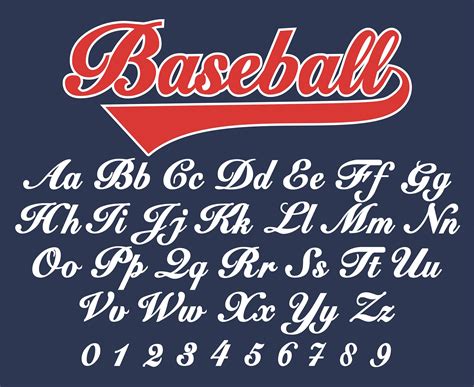
Unveiling The Baseball Font With A Tail: A Complete Guide
Hey guys! Ever wondered about those cool fonts you see on baseball jerseys, scoreboards, or even in your favorite team’s logo? One of the most eye-catching styles often features a distinctive “tail” – a flowing, extended element that adds flair and dynamism. Today, we’re diving deep into the world of baseball fonts with tails , exploring their origins, characteristics, and where you can find the perfect one for your project. This guide is designed to be your one-stop resource, whether you’re a seasoned designer, a passionate sports fan, or just someone curious about the aesthetics of America’s favorite pastime.
The Anatomy of a Baseball Font with a Tail: What Makes It Special?
So, what exactly is a baseball font with a tail? Well, it’s pretty much exactly what it sounds like! It’s a font style typically inspired by the lettering used in baseball. The “tail”, also often referred to as a “swash” or “serif extension”, is a decorative flourish that extends from the end of a letter, usually curving or flowing in a visually appealing way. These tails are not just random additions; they serve several purposes, which we will explore further. It’s a key characteristic, separating it from standard sans-serif or serif fonts often used.
Firstly, baseball fonts with tails are designed for impact. They demand attention, making them ideal for headlines, logos, and any design element that needs to make a statement. The tails add a sense of movement and energy, mirroring the dynamism and excitement of the sport itself. Think of it like a stylized representation of a baseball player swinging for the fences – full of power and motion. The design is crucial, since the tail creates a unique visual identity, and is also used to represent the name of the players or the teams, and that’s why it is so famous. The fonts often come in various weights, from thin and elegant to bold and aggressive, allowing for versatility in different applications.
Secondly, the tail can add a sense of personality and character. Designers can get creative with tail styles, from simple, elegant curves to more elaborate and stylized flourishes. This can help communicate the personality of a team or brand. Some fonts have tails that mimic the stitching on a baseball, adding a thematic touch. Others might incorporate subtle nods to baseball equipment like bats or gloves. This attention to detail can elevate the design, making it more engaging and memorable. Tail features can also affect the readability of a font. It can make them more legible at a distance, making them perfect for sports arenas.
Finally, baseball fonts with tails are a nod to tradition. They are a visual representation of the history and legacy of the sport. Their design gives off the feeling of traditional sportsmanship. By using a baseball font with a tail, you’re tapping into the rich visual language of baseball, instantly connecting with fans and evoking a sense of nostalgia and pride.
Key Characteristics to Look for in Baseball Fonts with Tails
When choosing a baseball font with a tail , there are several key characteristics to keep in mind. Understanding these features will help you select the perfect font for your specific project. Here are some of the most important things to consider:
• Readability: Although the tail adds a distinctive flair, it’s crucial that the font remains easy to read. Especially when used in headlines, the letters need to be clear and distinguishable, and the tail must not interfere with the overall structure. A font that is too stylized or has an overly elaborate tail might be visually interesting but difficult to decipher.
• Style of the Tail: This is where the personality of the font truly shines. Consider the shape, length, and direction of the tail. Does it flow smoothly or have sharp angles? Does it curl upwards or downwards? The style of the tail should complement the overall design and communicate the desired message. For example, a font with a bold, aggressive tail might be suitable for a high-energy brand, while a font with a more elegant tail might be better suited for a classic or refined look.
• Weight and Kerning: The weight of the font (e.g., light, regular, bold, extra bold) affects the visual impact. The font’s kerning (the space between letters) is also essential for readability. Ensure that the chosen weight and kerning work well together, particularly at different sizes. Poorly kerned fonts can appear cluttered and difficult to read, which can ruin the overall design. When it comes to the weight, if you choose a bold font, be careful about the tail, as it can be too dense.
• Letterforms: Apart from the tail, examine the overall shape of the letters. Are they round or angular? Do they have any unique features, like serifs or stylistic alternates? The design of the letterforms should be consistent and contribute to the overall aesthetic. Look for fonts with consistent letter spacing, making them easy to read. Consider testing out the font in various sizes. This can give you an idea of how well it maintains its readability and impact.
• Versatility: Does the font offer a range of weights and styles? Is it available in both uppercase and lowercase? A versatile font will give you more flexibility in your design projects. Look for a font family that includes different weights, such as light, regular, bold, and extra bold. The availability of lowercase letters can also be very useful, allowing you to create more diverse and balanced designs. A broader range of options allows for greater creative freedom.
Alright guys, let’s get down to the good stuff! There’s a ton of fantastic baseball fonts with tails out there, and here are a few popular choices and where you can find them:
• Varsity Team: This is a classic, widely used font that embodies the spirit of traditional sports lettering. It’s often seen on college and high school sports teams’ logos and jerseys. The font features bold, impactful letterforms with distinctive, flowing tails. You can often find this font on websites like MyFonts and Creative Market.
• Home Run: Home Run font provides a more modern and stylized take on the classic baseball font. You can discover this font on sites like FontBundles, which offers various options.
• Bangers: Bangers font offers a distinct personality. This font usually includes extra features, such as tail variations or alternative letter forms. These can be easily found on sites like Google Fonts or FontSquirrel.
• League Spartan: League Spartan is a bold, condensed sans-serif font, often used in athletic branding, including baseball. While not strictly a “tail” font, it has a strong, impactful presence that complements a baseball-themed design.
• Availability : Check if the font is available in different file formats (OTF, TTF, WOFF) to ensure compatibility with your design software and web platforms.
When downloading and using any font, always check the licensing terms to ensure you can use it for your intended purpose (personal, commercial, etc.).
Tips for Using Baseball Fonts with Tails Effectively
Okay, now that you know about these awesome baseball fonts with tails and where to find them, let’s talk about how to use them effectively. Here are some pro tips to help you create stunning designs:
• Use it Sparingly: Baseball fonts with tails are bold and attention-grabbing. Avoid using them for large blocks of text or body copy. Instead, reserve them for headlines, titles, logos, and other key design elements where you want to make a statement.
• Pair it Right: Consider the visual balance of the overall design. You can pair a baseball font with a tail with a simpler, cleaner font for body text. This contrast can create a visually appealing hierarchy. Mixing fonts with different styles can also be effective, but make sure to maintain consistency in the tone and overall theme of the design. Test different combinations to ensure readability and visual harmony.
• Color Matters: The color of the font can significantly impact the overall look. Think about the colors of the teams or brands you’re designing for. Use colors that complement each other and reflect the desired mood or message. Consider the background color and ensure that there is enough contrast for readability.
• Spacing is Key: Pay close attention to the kerning (the space between letters) and leading (the space between lines of text). These elements can significantly affect readability and the overall aesthetic of your design. Tight kerning can make the font look cluttered, while too much space can make it feel disconnected. Be sure to find the right balance.
• Consider the Context: Make sure the baseball font with a tail fits the overall theme and purpose of your design. For example, a bold, aggressive font might be great for a sports team’s logo, but less appropriate for an invitation to a formal event.
• Test and Iterate: Always test your designs in various sizes and contexts to ensure they look good and are easy to read. Don’t be afraid to experiment with different variations, styles, and color combinations. The more you experiment, the better you will understand how to use these fonts effectively.
Conclusion: Your Home Run with Baseball Fonts with Tails
There you have it, folks! Your complete guide to baseball fonts with tails . From understanding their characteristics and origins to finding the perfect font for your project and utilizing them effectively, you’re now equipped to incorporate these dynamic fonts into your designs. Whether you’re a seasoned pro or just getting started, the world of baseball fonts with tails has something for everyone.
So go forth, experiment, and have fun creating! Remember to prioritize readability, consider your audience, and don’t be afraid to get creative. With a little practice, you’ll be hitting home runs with your designs in no time. Good luck, and happy designing! Let me know if you have any questions, I’m happy to help. Baseball font with tails are not just a style. They are a statement and an homage to one of the most beloved games in history. And now, you’re ready to create your own winning designs with these fun and exciting fonts! Keep swinging for the fences!”